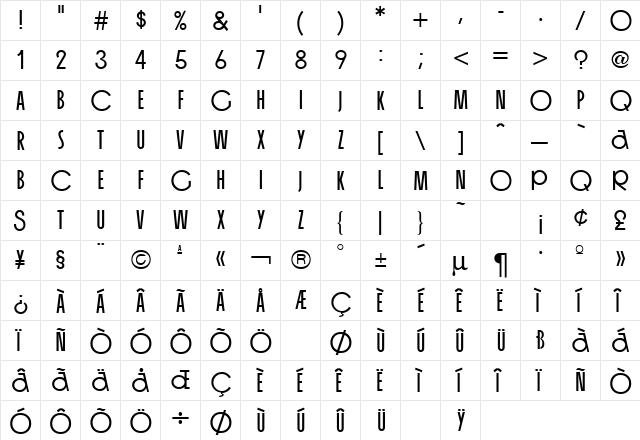
Organda Bold Regular
Design Context for Organda Bold Typeface
Organda Bold offers clean, dependable letterforms without strong stylistic allegiance, making it a practical choice for designers who need flexibility. The heavy weight commands attention and anchors typographic hierarchies.